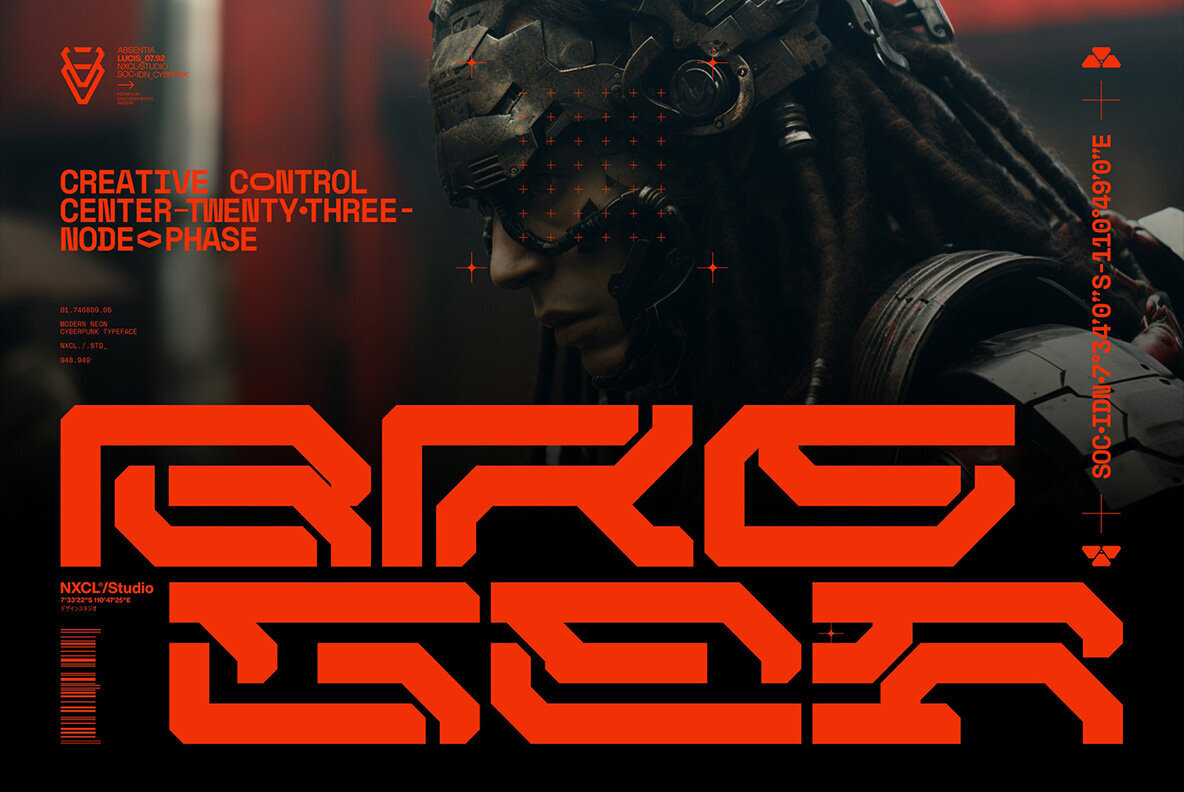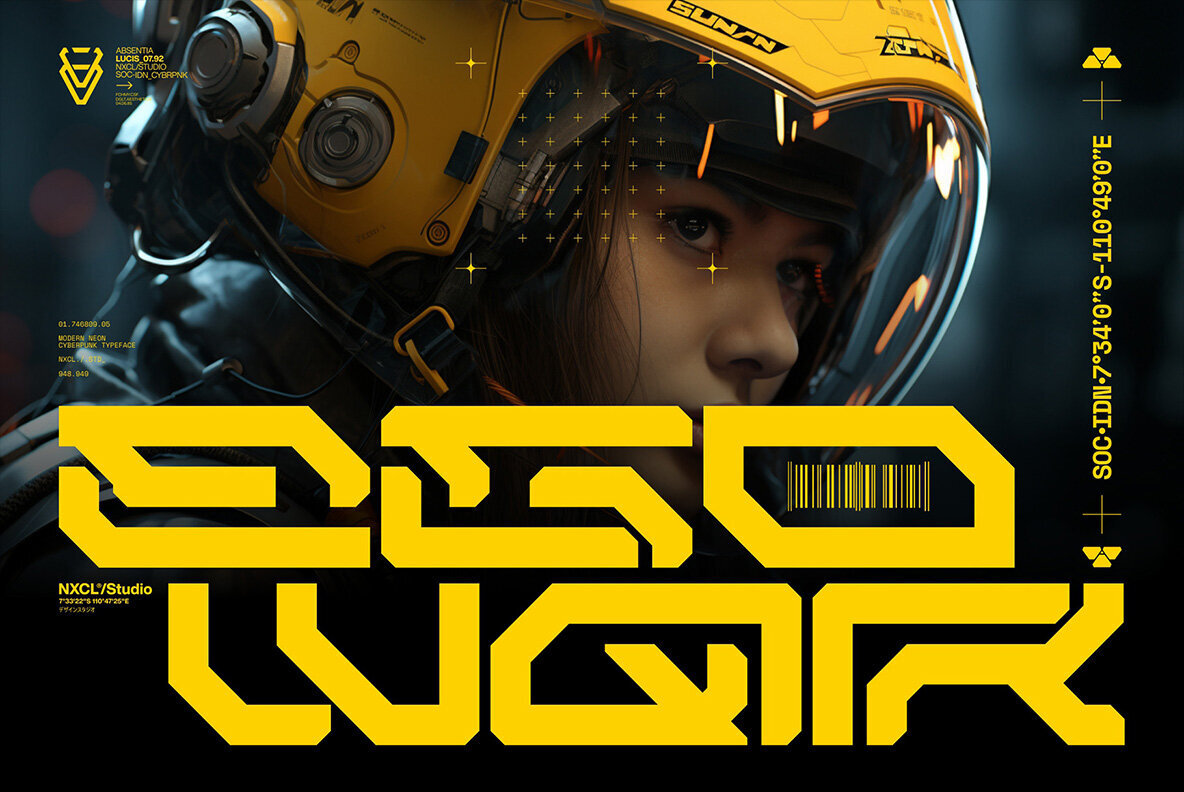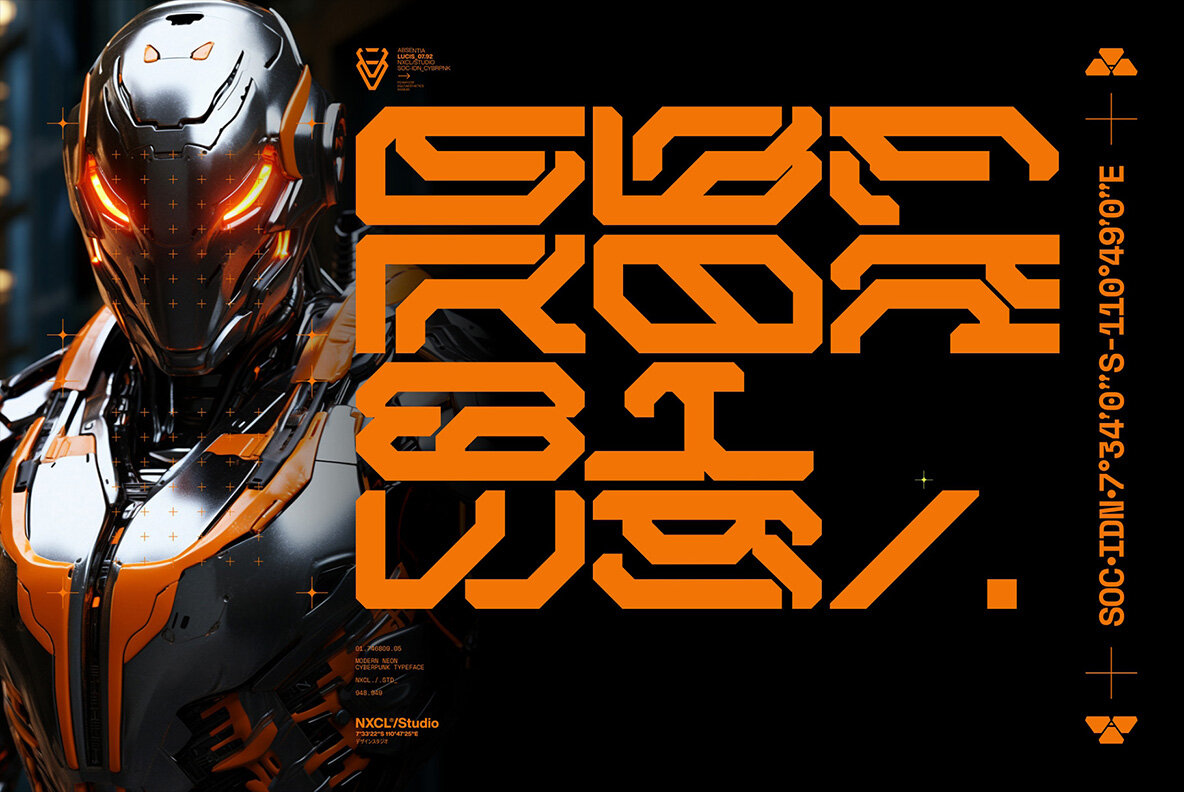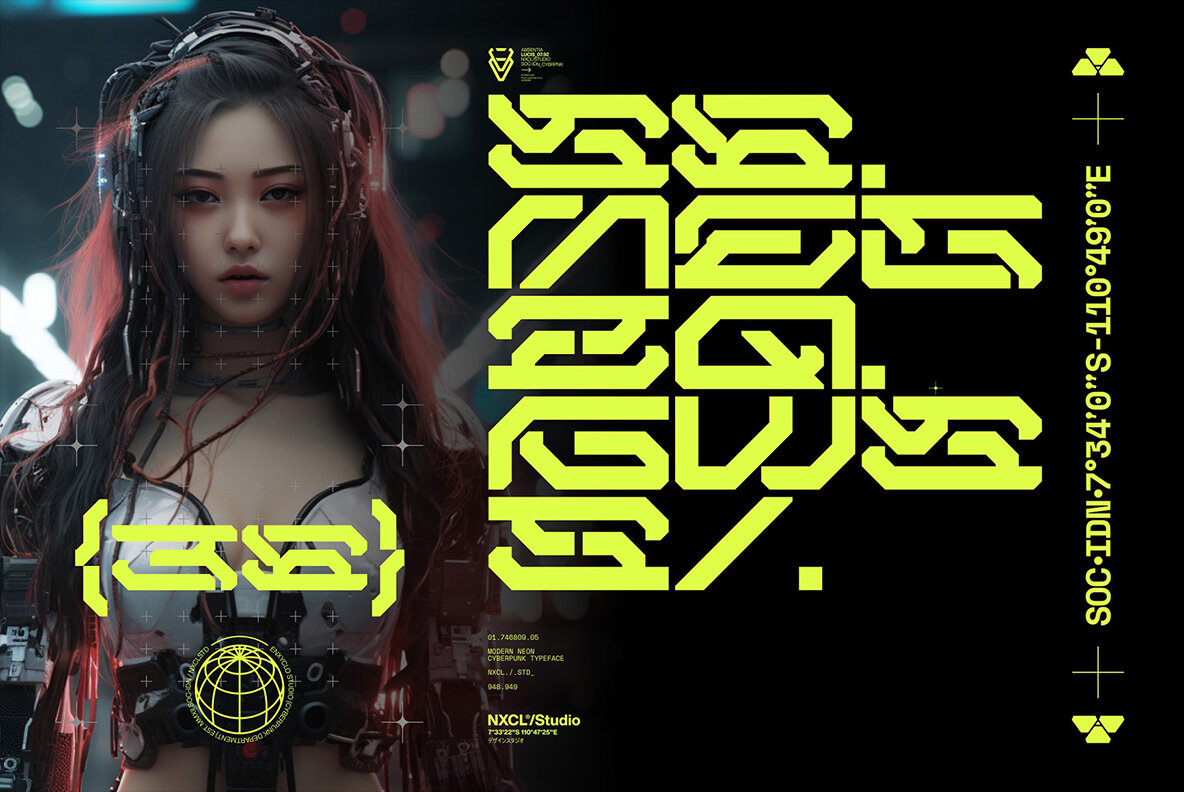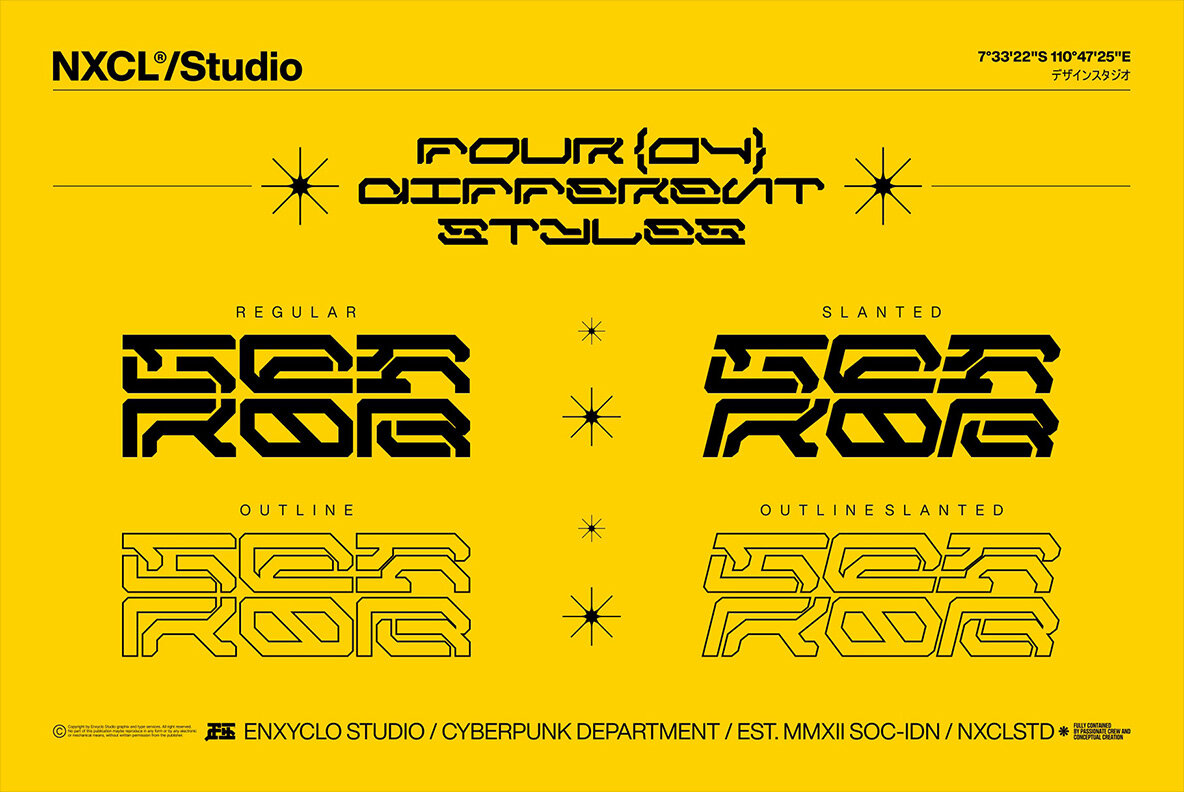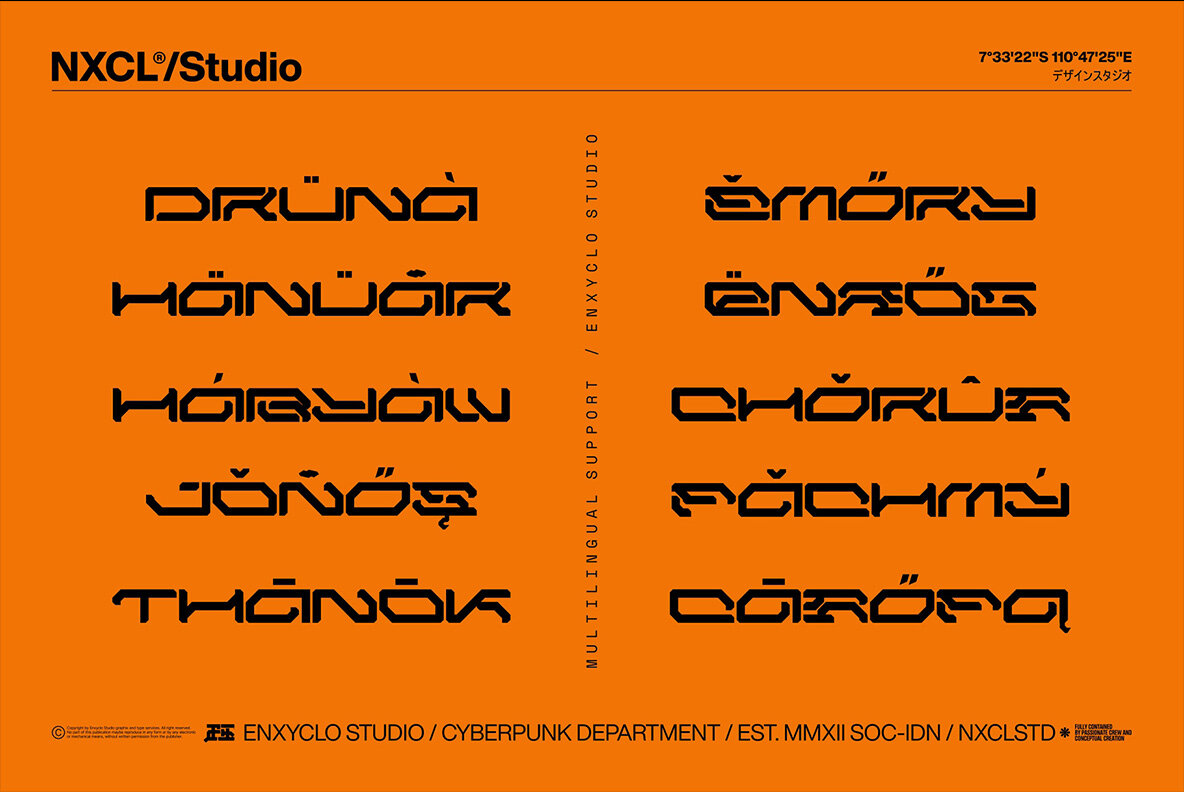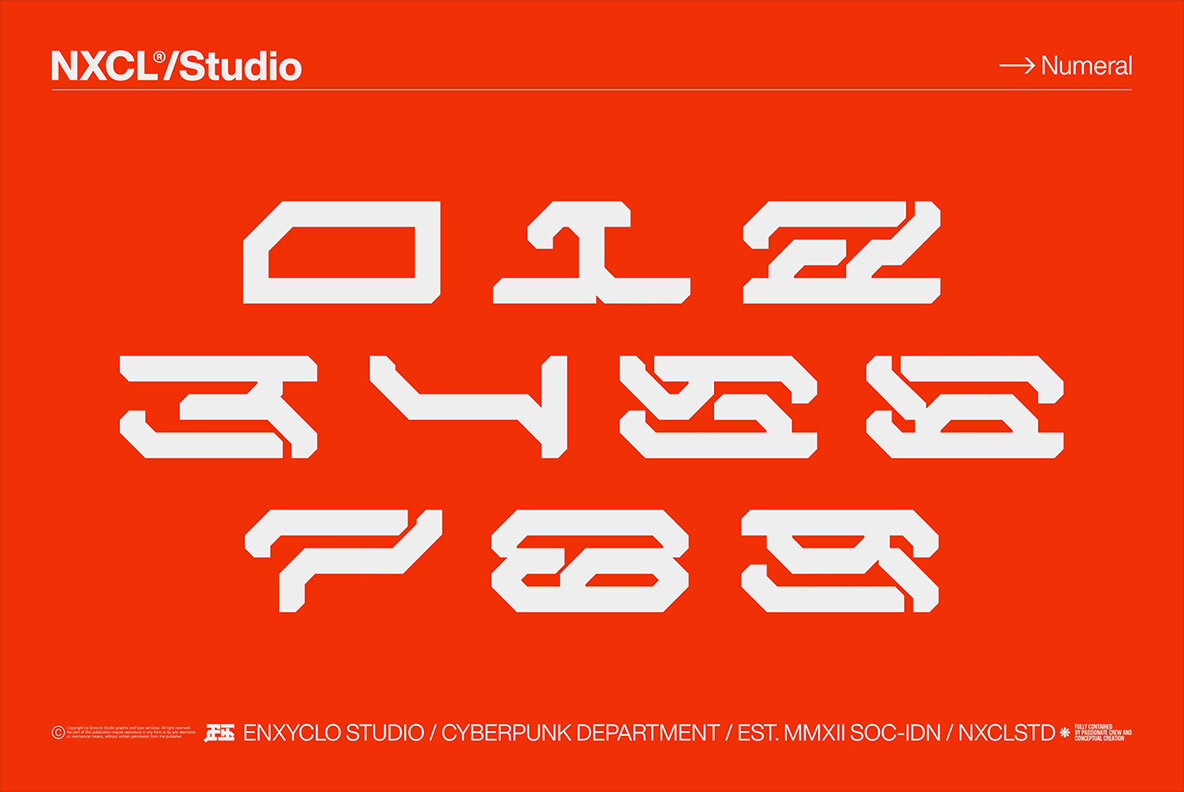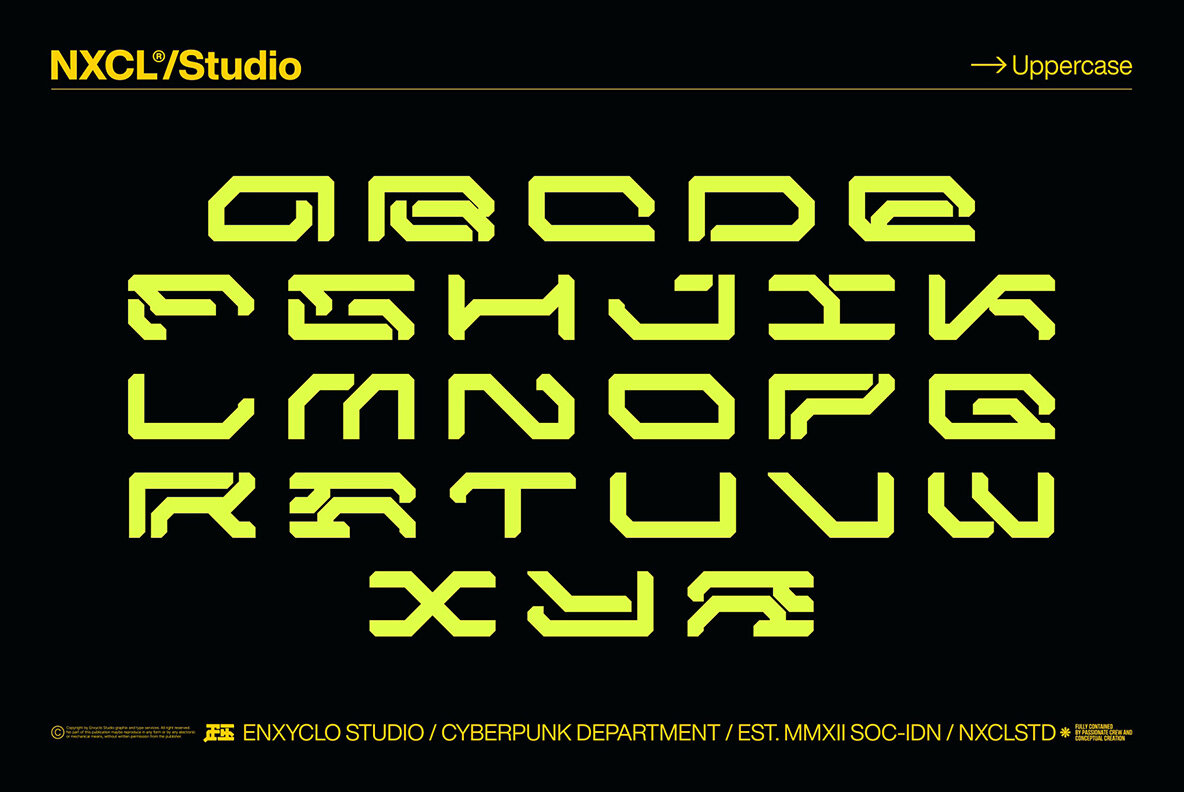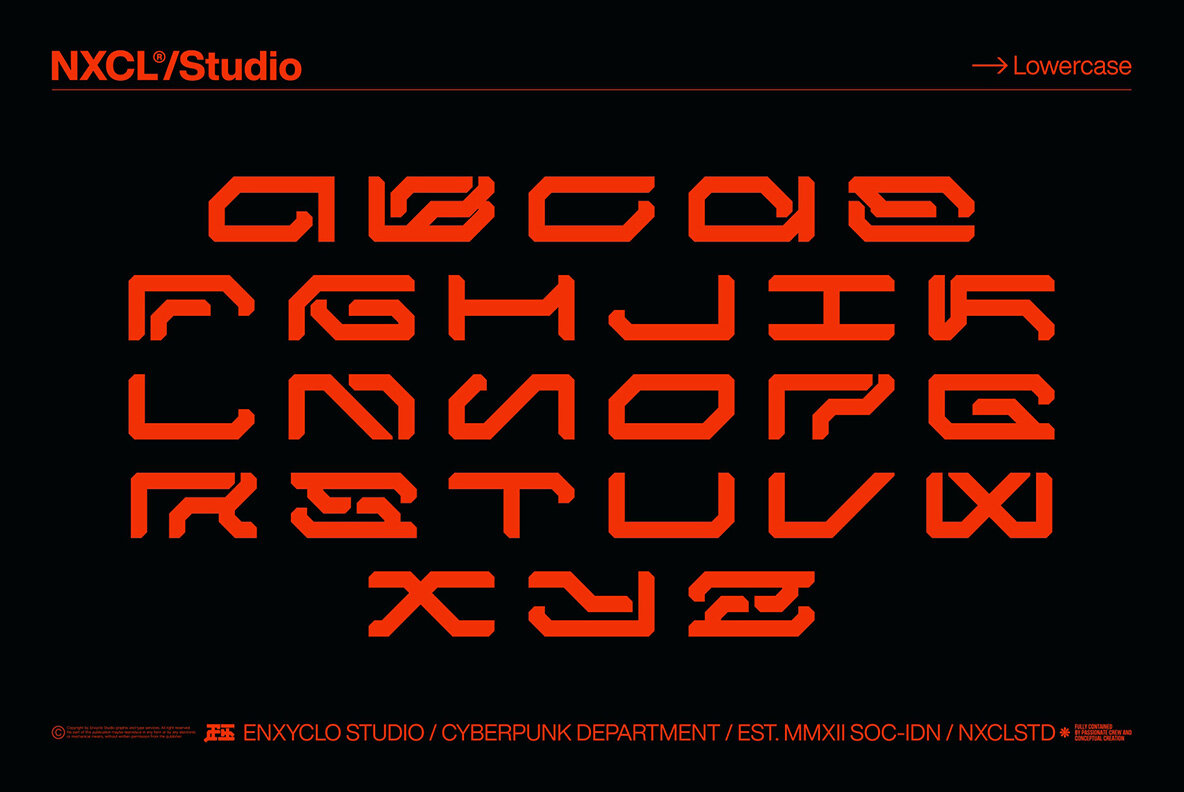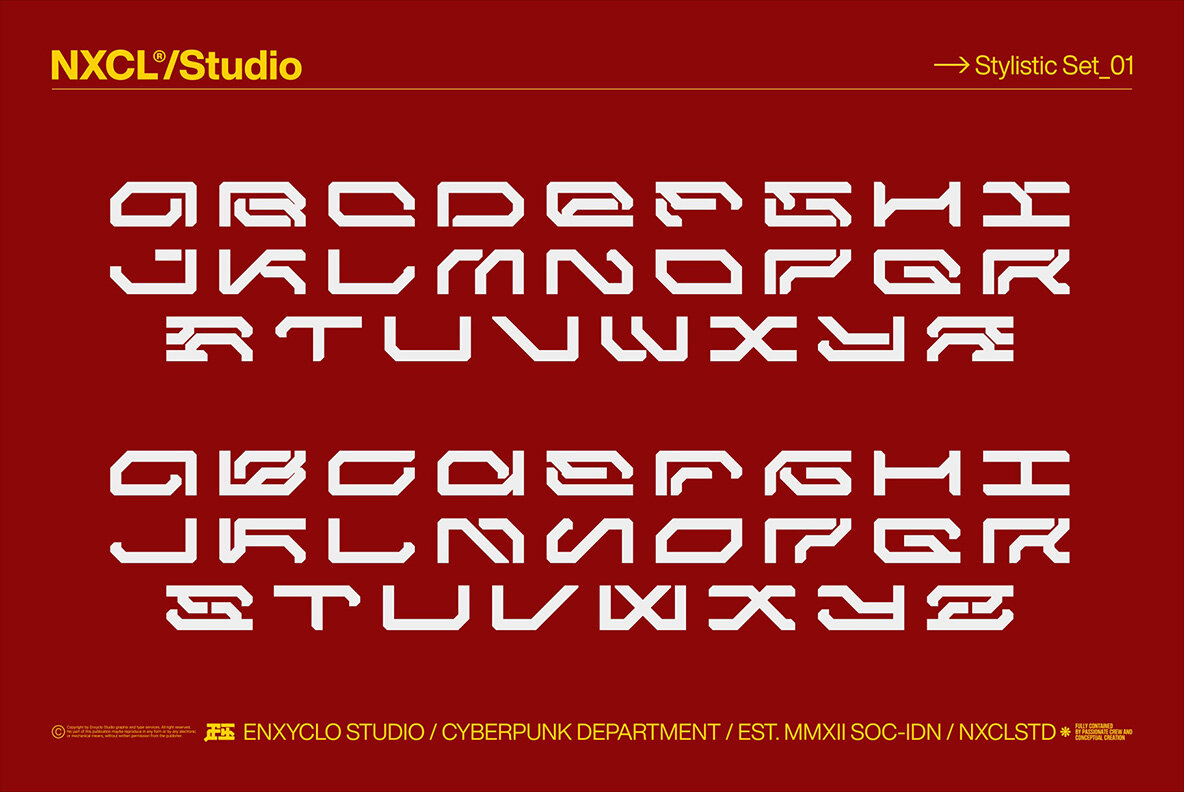
NCL Gesrob Font
NCL Gesrob is not your ordinary font. It’s a modern cyberpunk futuristic techno mecha font that takes your creativity to the next level. Its futuristic aesthetics bring a whole new dimension to your designs, making them stand out. Whether you’re working on a website, poster, logo, or any other project, this font adds that extra touch of innovation and sophistication. FEATURES